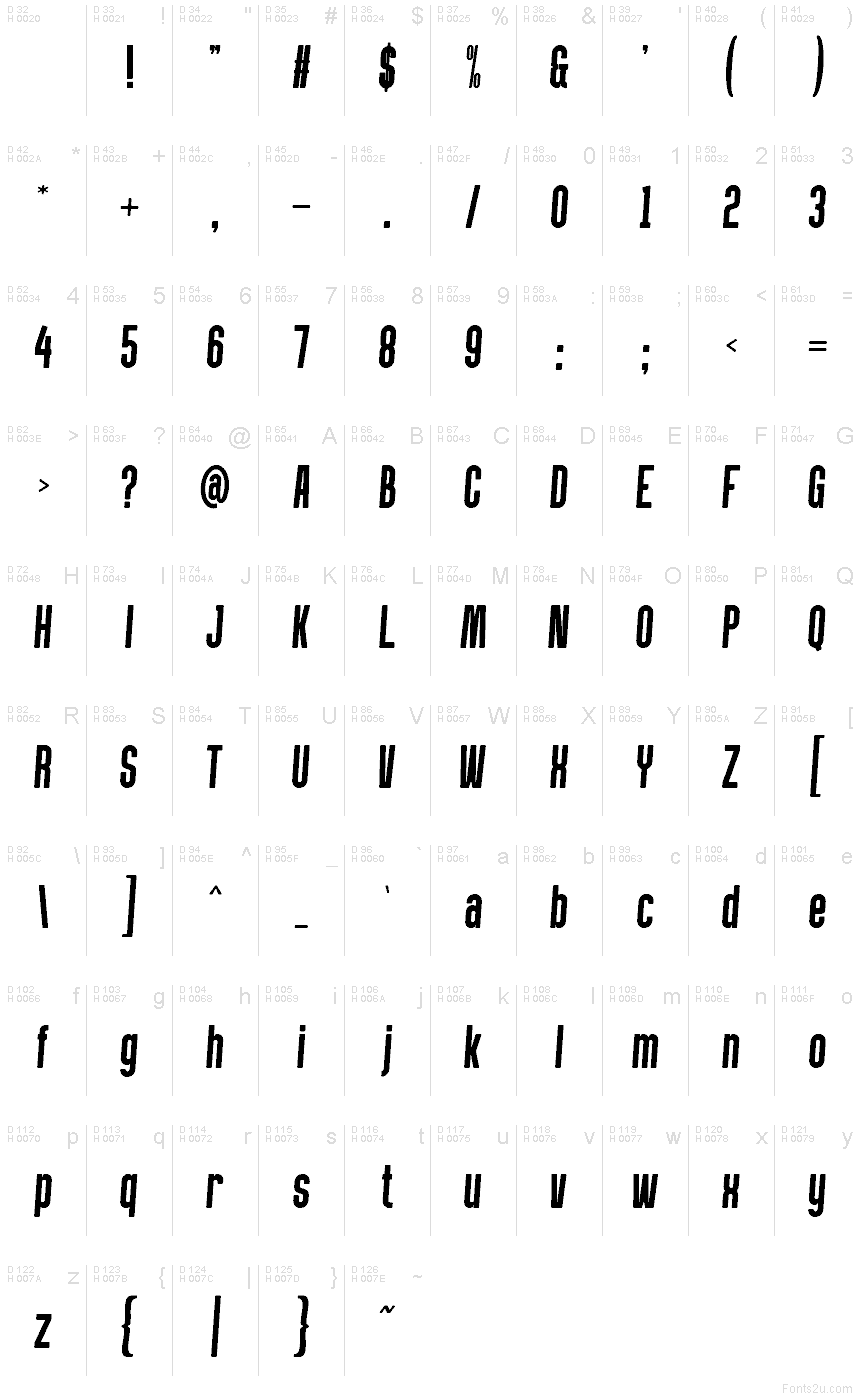
DUMERO Italic Rounded
Dumero Italic Rounded font by Gilang Ternadho is a condensed sans serif with an angular and modern look. An assertive and impactful geometric influence achieves an industrial sharing without losing its versatility as a free scientific project font or tech magazine font.
Additional use cases are for brochures, leaflets, flyers, posters, logos, leaflets, product packaging/labels, games cover titles (think of action/fighting games), business cards.